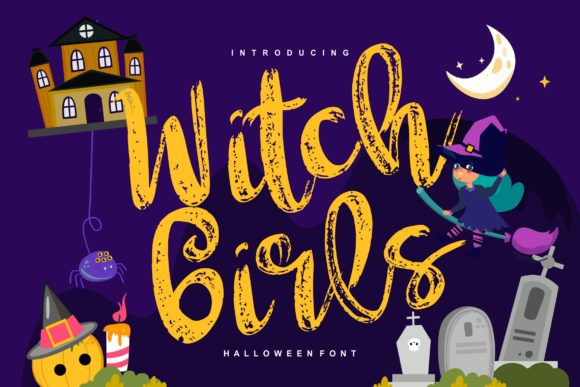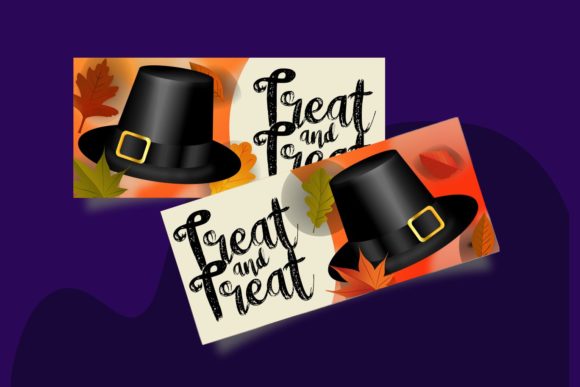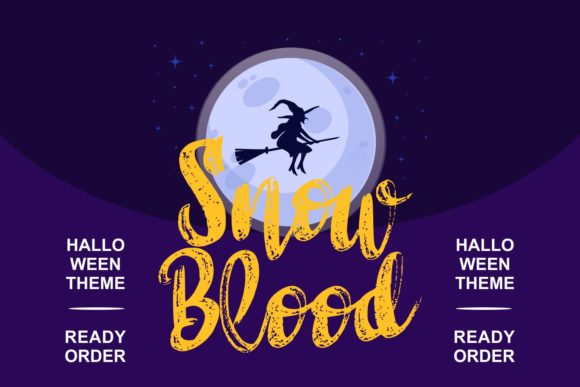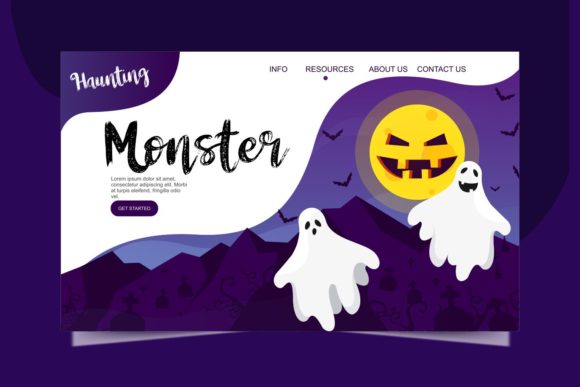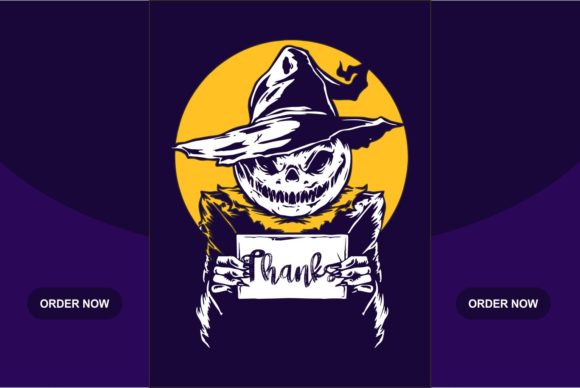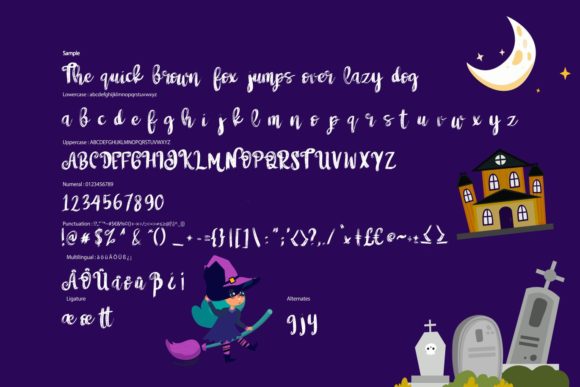
Witch Girls Font
About Witch Girls Font
Witch Girls is a handwritten typeface with Halloween inspired style. Fall in love with its spooky yet friendly charm!